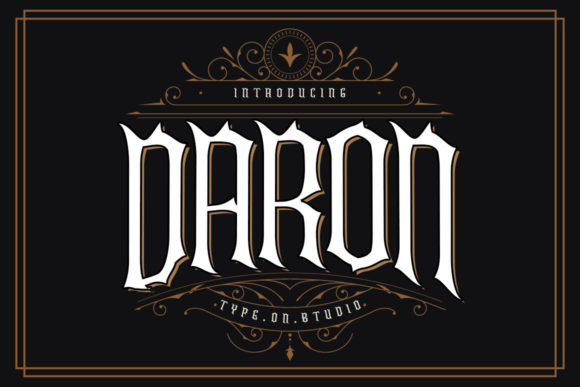
**Daron Font: The Victorian Blackletter That Will Elevate Your YouTube Shorts**
Welcome to the world of Daron Font, a Victorian-styled blackletter that exudes elegance and sophistication. Crafted by the talented type.on.studio, this font is a masterpiece that will effortlessly enhance your YouTube Shorts, captivating viewers with its intricate details and timeless appeal.
**Unleash the Power of Blackletter**
Daron Font embodies the essence of blackletter, a script that has graced medieval manuscripts and historic documents for centuries. Its distinctive angular strokes and ornate flourishes evoke a sense of antiquity and grandeur, adding depth and character to your content.
**Empower Your Storytelling**
With Daron Font, you possess the power to craft eye-catching thumbnails that draw viewers in and set your videos apart. Its bold presence commands attention, enticing your audience to discover the compelling stories and captivating visuals within your YouTube Shorts.
**Elevate Your Branding**
Beyond thumbnails, Daron Font is a versatile asset for branding your channel. Incorporate it into your intro and outro sequences, watermarks, and channel art to create a cohesive and memorable identity that reflects your unique style.
**Inspire Your Creativity**
Daron Font is not merely a typeface but a fountain of inspiration. Its intricate details ignite your imagination, inspiring you to create captivating content that resonates with your viewers. From whimsical animations to thought-provoking infographics, the possibilities are endless with Daron Font.
**Experience the Victorian Charm**
Embrace the Victorian era's timeless allure with Daron Font. Its elegant curves and elaborate embellishments transport your audience to a bygone era, adding a touch of nostalgia and enchantment to your YouTube Shorts.